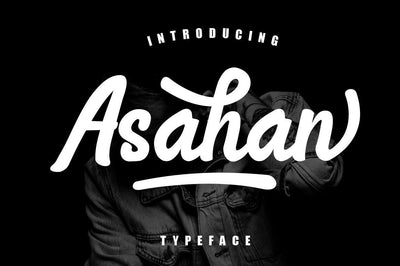
Asahan bold script
Asahan is a gorgeous and bold paint brushed handwritten font, crafted to give your headlines and logotype projects a stylish touch. This font reads as strong, confident, and dynamic and can add tons of nostalgic character to your designs.